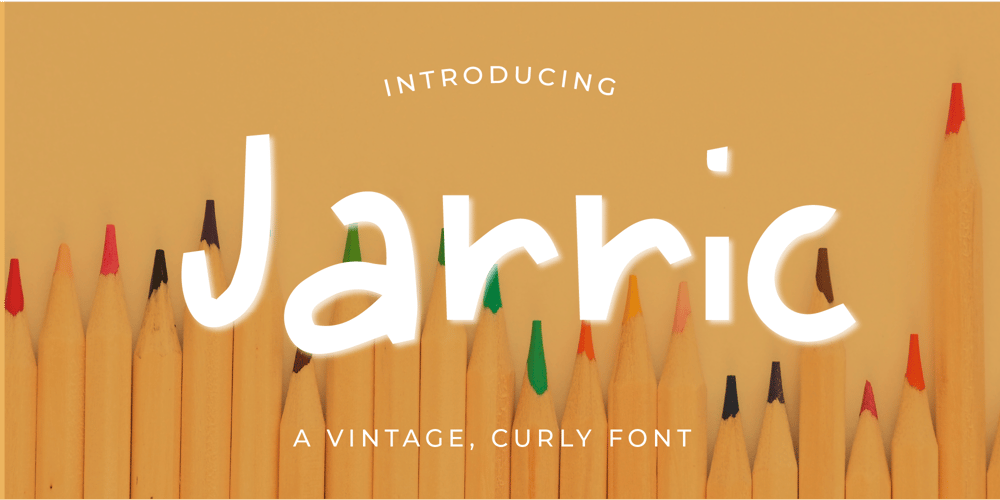
Jarric Font Family was designed by Helen Patmore and published by The Indigo Sea. Jarric contains 1 styles and family package options. Jazz up your project with Jarric. It’s a vibrant, bold and delightfully random hand-drawn font; an excellent choice for creators and makers. From attention-grabbing graphics and prints, to branding and creative projects, you’ll be sure to stop them in their tracks with Jarric.Jarric includes a upper and lower case characters, numbers, and full multilingual support